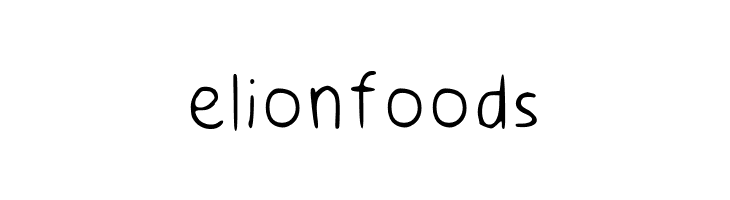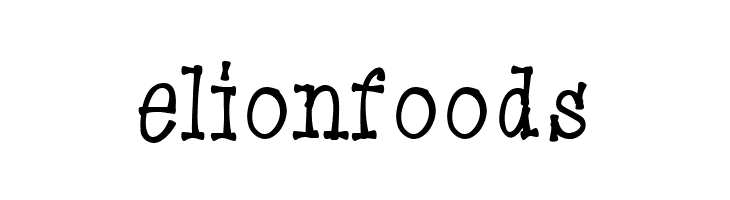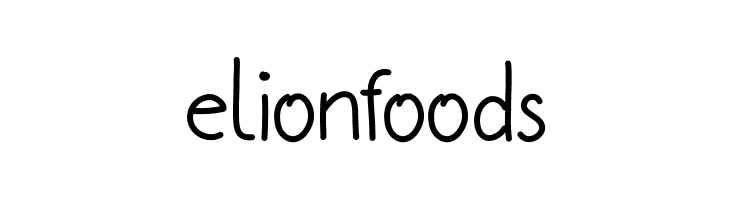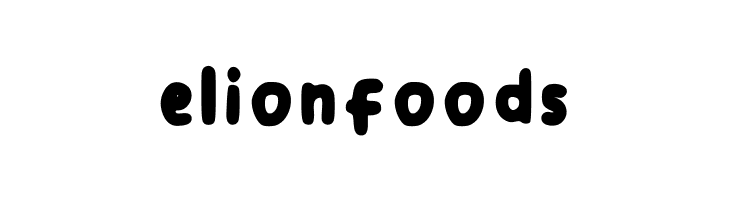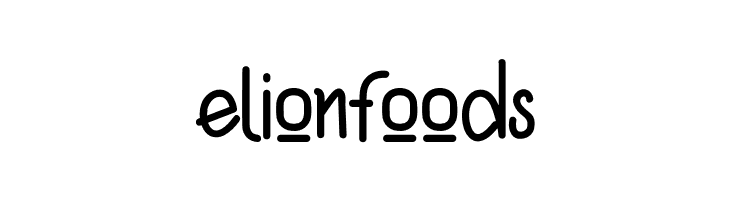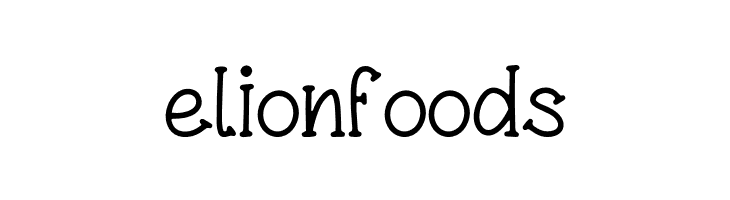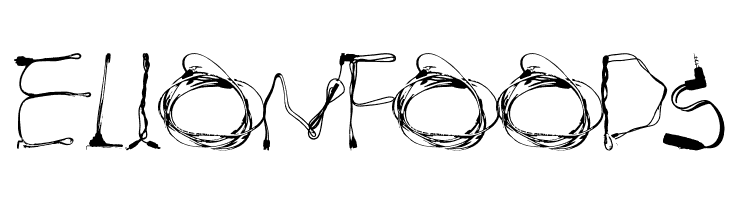
A playful, informal handwritten font with a friendly and casual style.
A casual, handwritten font with a personal and informal style.
A playful, hand-drawn font with a cartoonish and whimsical style.
A playful, handwritten font with smooth curves and a casual style.
A playful, bold handwritten font with rounded, irregular letterforms.
A playful, handwritten font with a whimsical and friendly style.
A playful, handwritten font with smooth curves and a casual style.
A playful, hand-drawn font with rounded, whimsical characters.
A playful, hand-drawn font with rounded, whimsical letterforms.
A creative font with characters resembling tangled wires, offering a unique and artistic look.